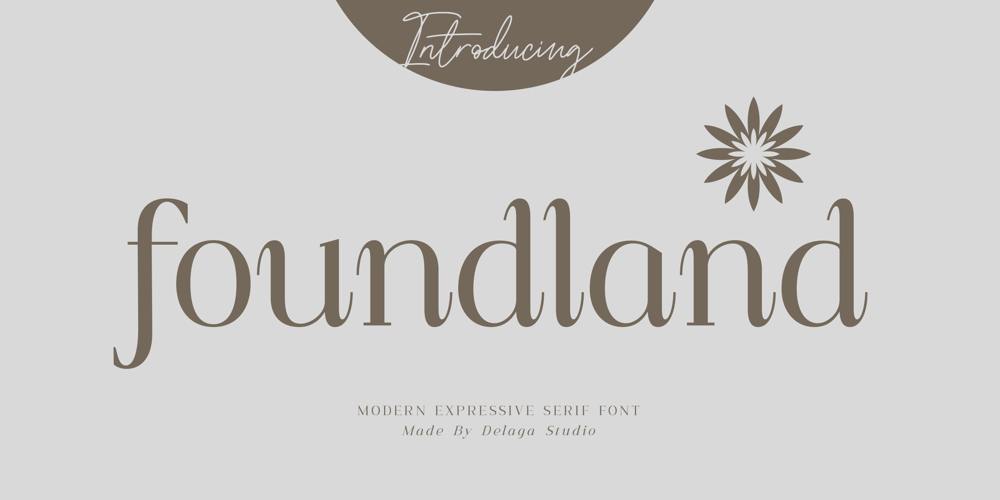
Foundland
Foundland font
Foundland Font Family was designed by Måns Grebäck and published by Mans Greback. Foundland contains 2 styles and family package options. Foundland is a flowing typeface in a classic style. Let this soft serif font give its beautiful tone to your next project. Use it for a feminine logotype or headline to give your work that endearing look. User underscore _ to make a swash. Example: Super_starsThe Foundland family consists of the fonts Regular and Italic.The font is built with advanced OpenType functionality and has a guaranteed top-notch quality, containing stylistic and contextual alternates, ligatures and more features; all to give you full control and customizability. It has extensive lingual support, covering all Latin-based languages, from Northern Europe to South Africa, from America to South-East Asia. It contains all characters and symbols you’ll ever need, including all punctuation and numbers.